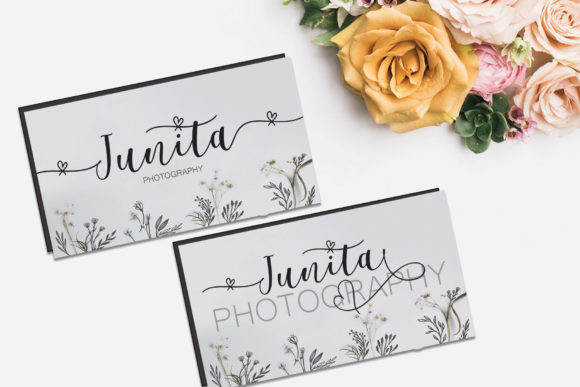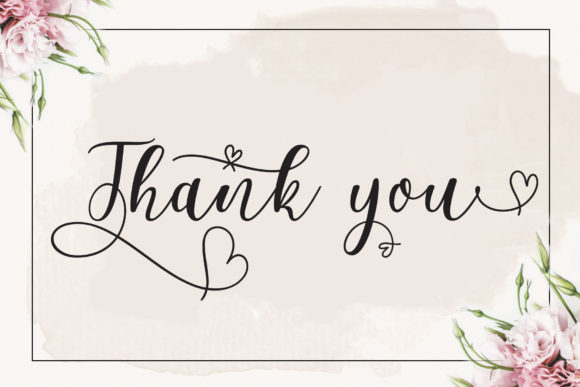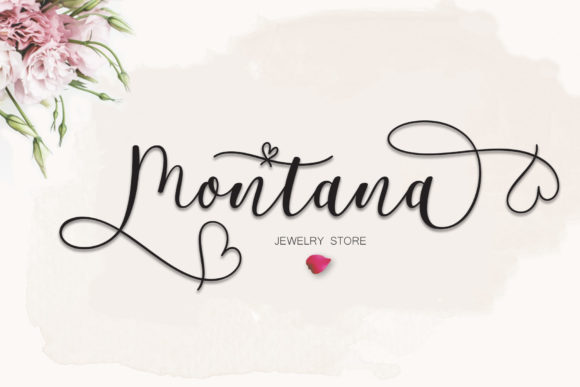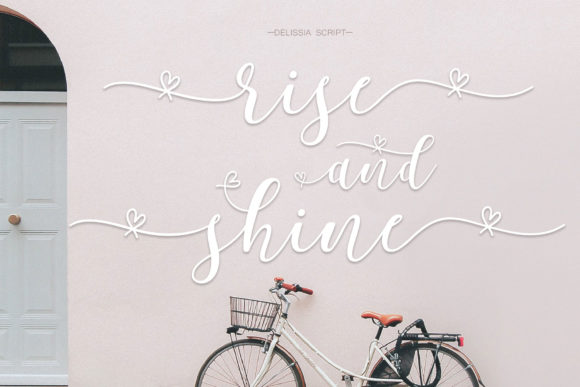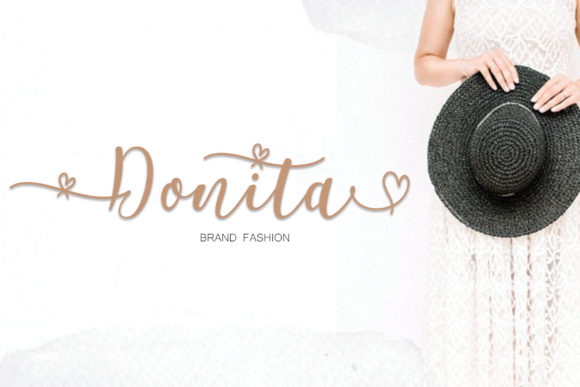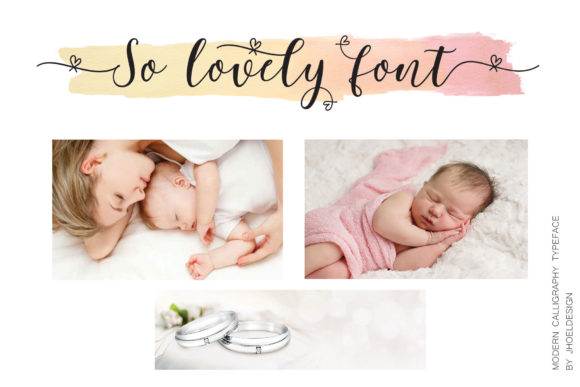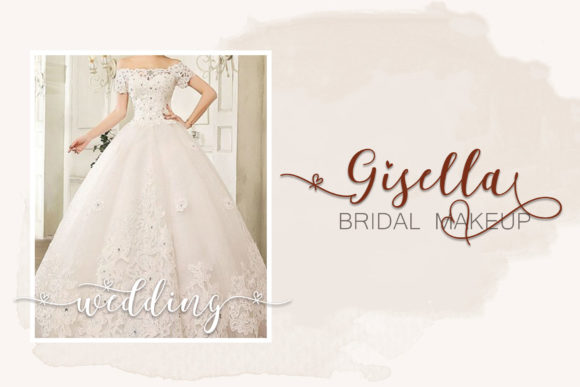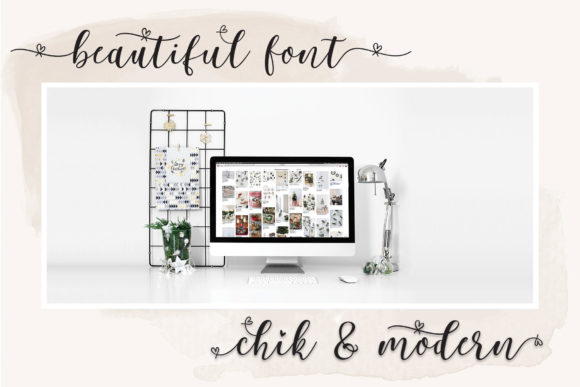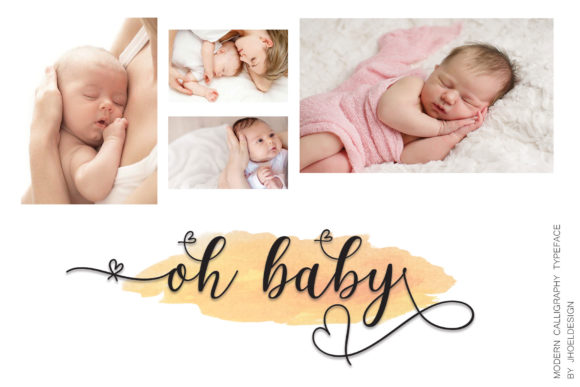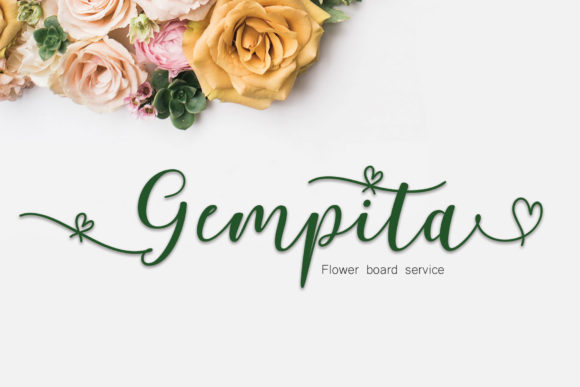
Delissia Script Font
About Delissia Script Font
The Delissia is a fresh and modern script font. It has was handmade with a beautiful calligraphy style. It’s dancing baseline gives it a luxurious feel and is perfect for logos designs, branding materials, posters, quotes, and much more!